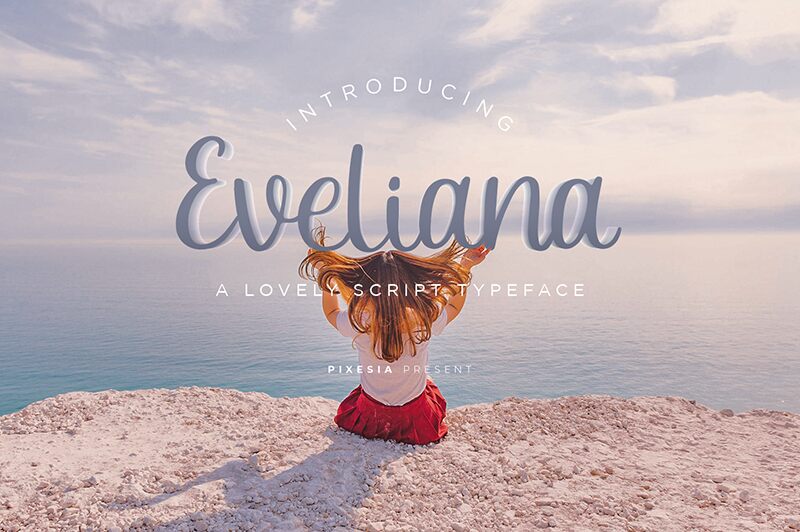
Eveliana font is a free handwritten font designed by Pixesia Studio. Elegant and modern script style, it holds an unmatching level of versatility as well with its casual elegance and personal touch. It boasts graceful curves with forms that give each letter an exquisite flowing character.
Thus, consider Eveliana for greeting cards, invitation designs, websites, header images, magazine covers or tips for vloggers. In addition to titles or logo projects where you can display the legible font in all of its glory alongside other elements of your picking. Use this nifty resource fully in your branding and packaging projects as well!